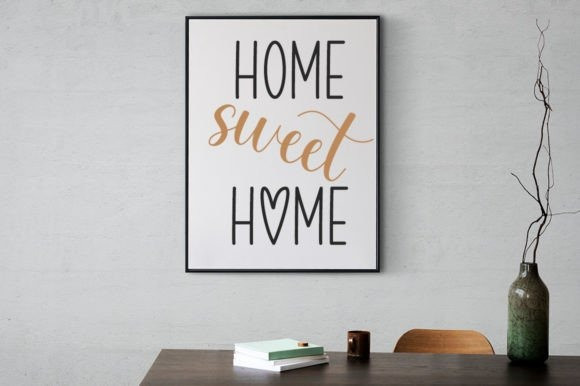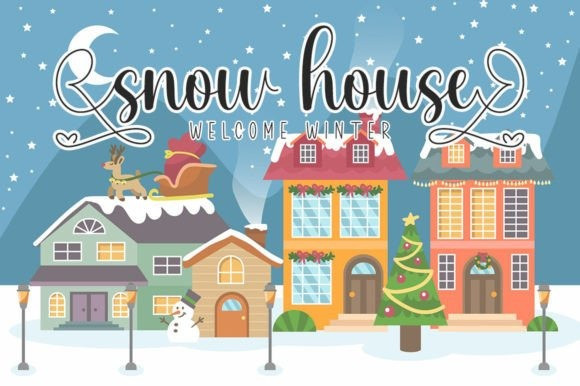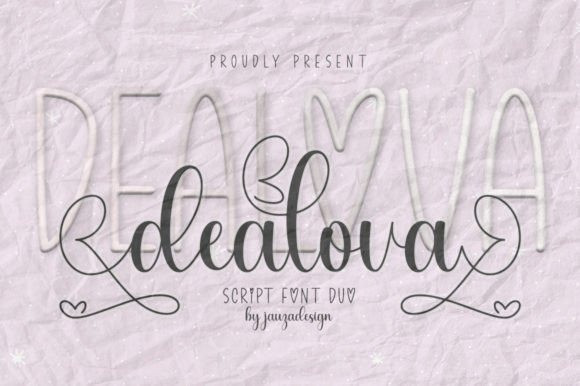
Dealova Font Duo
Dealova Font Duo is a lovely duo font (sans serif and script). Featuring characters that dance along the baseline, this font will add a luxury spark to any design project that you wish to create!
Dealova is PUA encoded which means you can access all of the glyphs and swashes with ease!